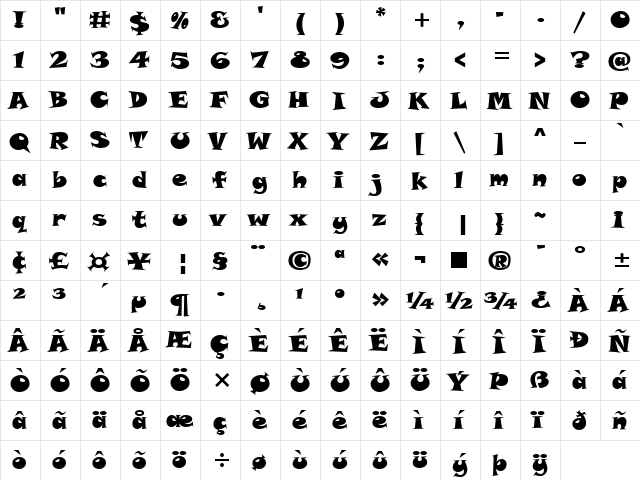
SnapITC Heavy Font Preview
SnapITC Heavy
Design Context for SnapITC Typeface
SnapITC is a composed and adaptable typeface that performs quietly and consistently across a wide range of design contexts.